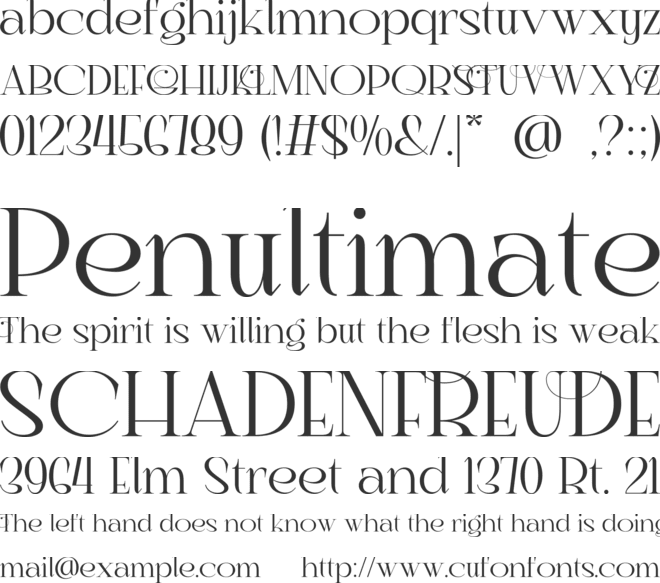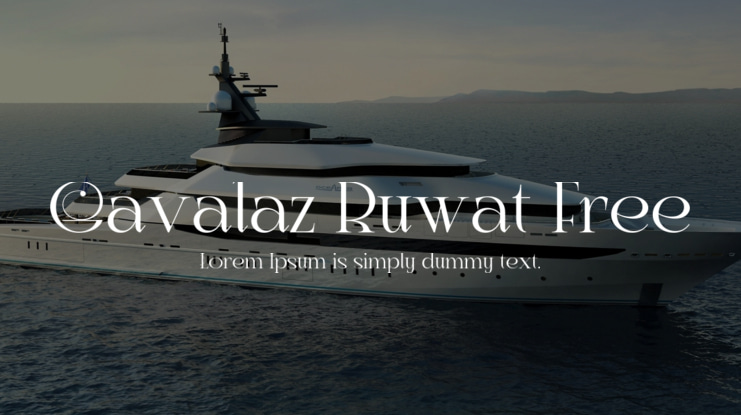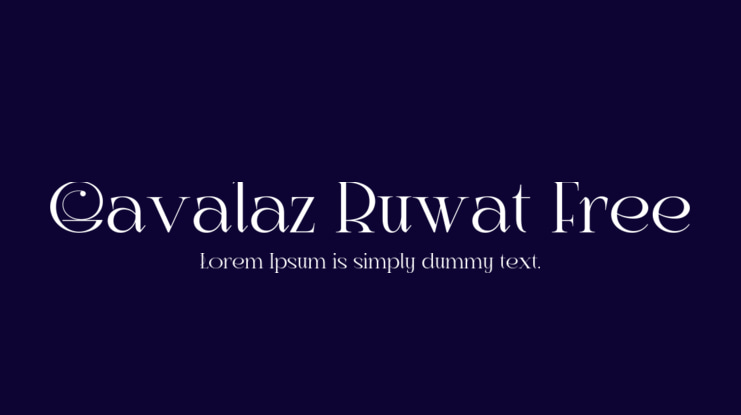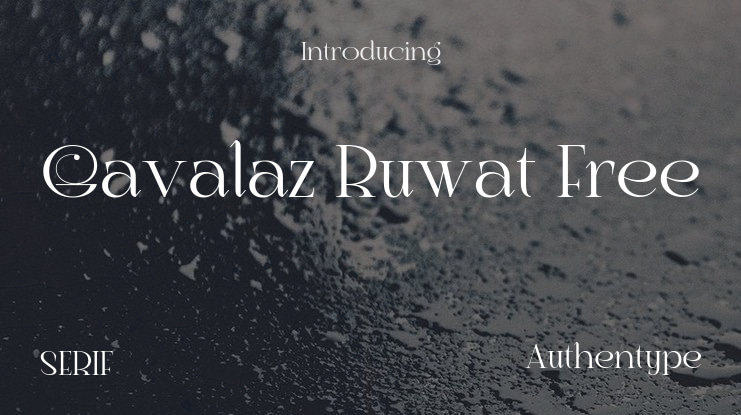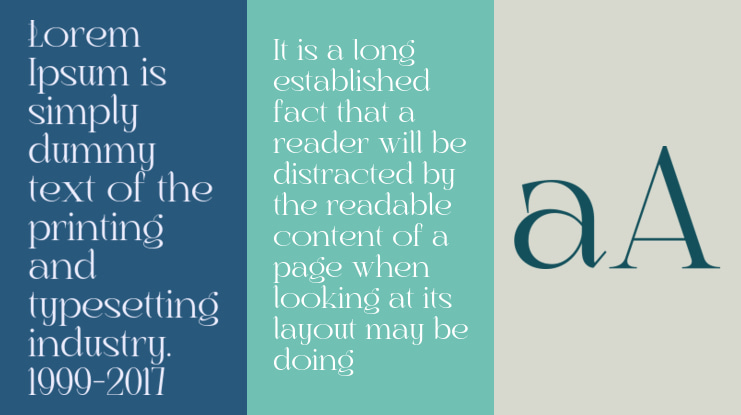
Gavalaz Ruwat Free Font
Gavalaz Ruwat Elegant and Beautiful Font Elegant Touch for Your Creations
Gavalaz Ruwat Font is the perfect choice for those who seek an elegant and beautiful touch in their designs. This font is crafted with fine details and outstanding grace, making every letter look mesmerizing and exquisite.